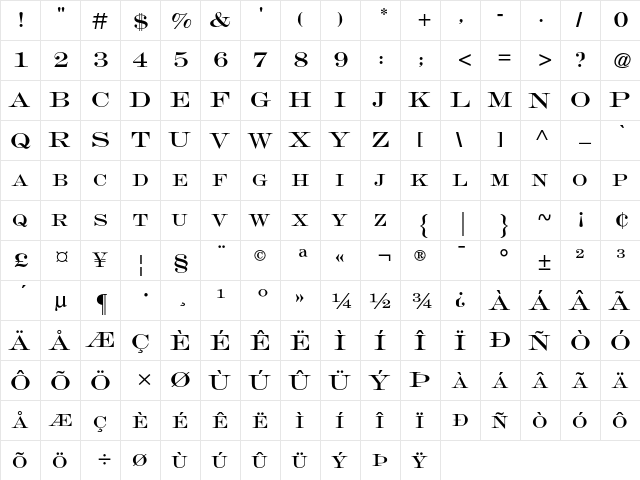
Engravure AT Regular
Design Context for Engravure AT Typeface
Engravure AT is a composed and adaptable typeface that performs quietly and consistently across a wide range of design contexts.